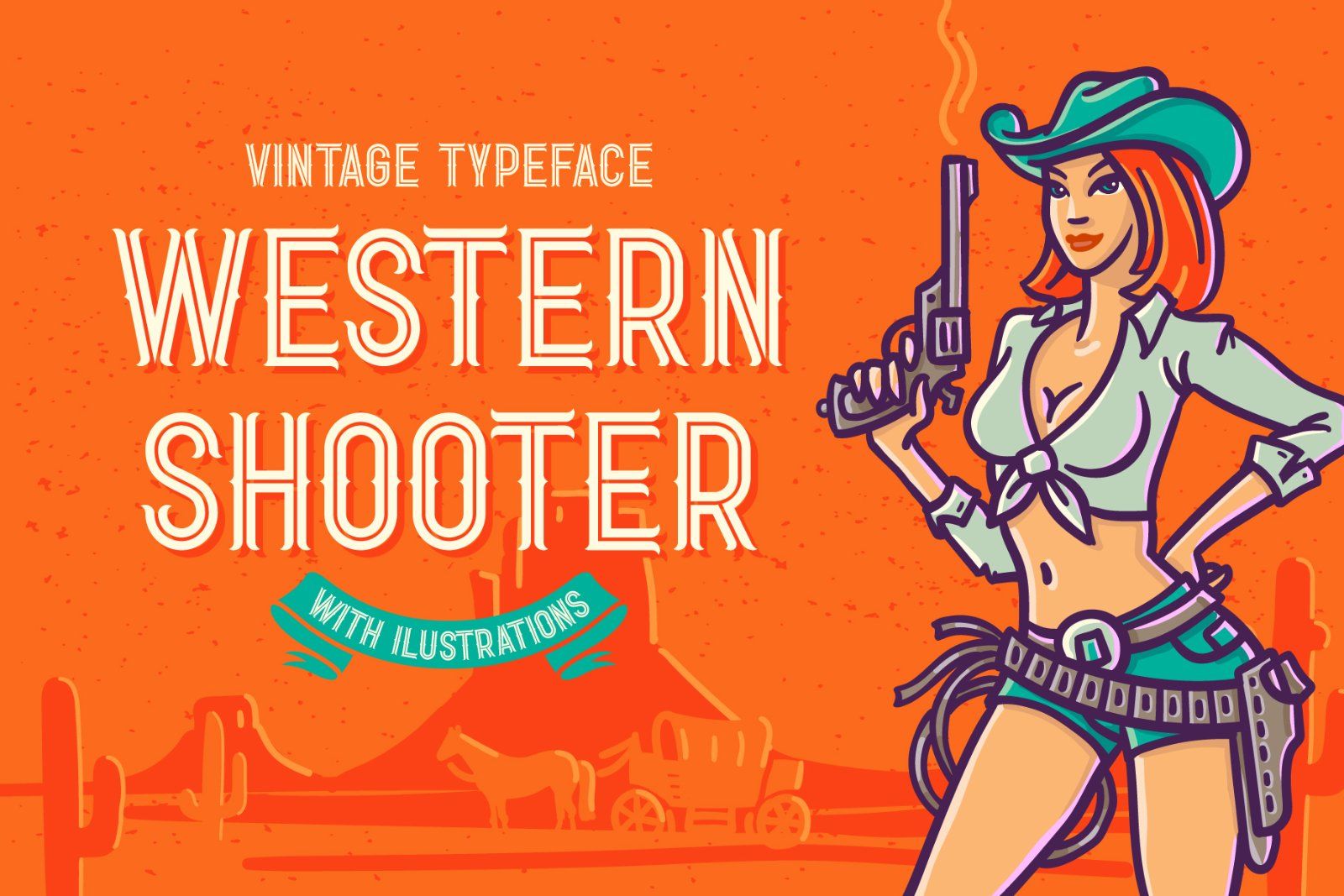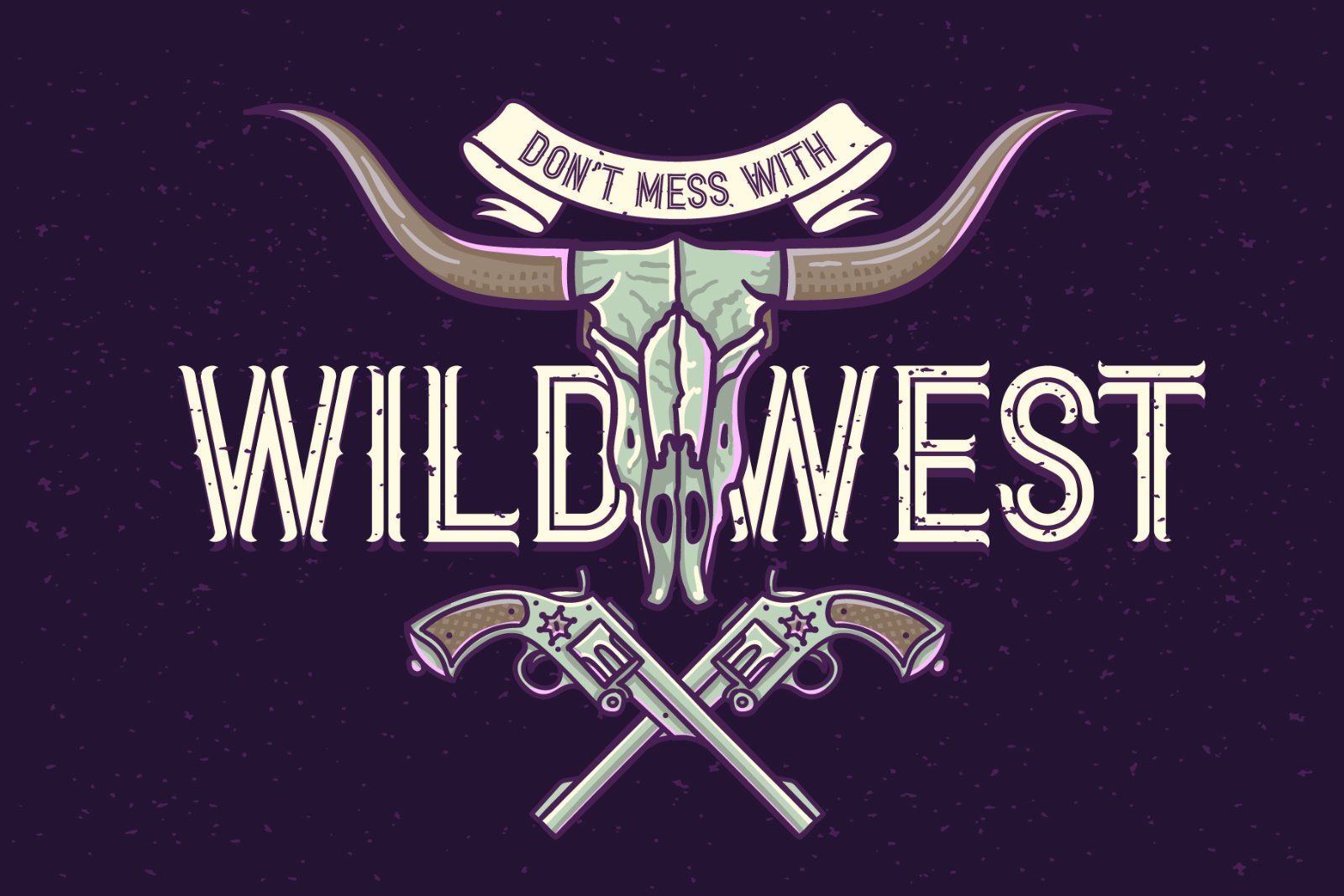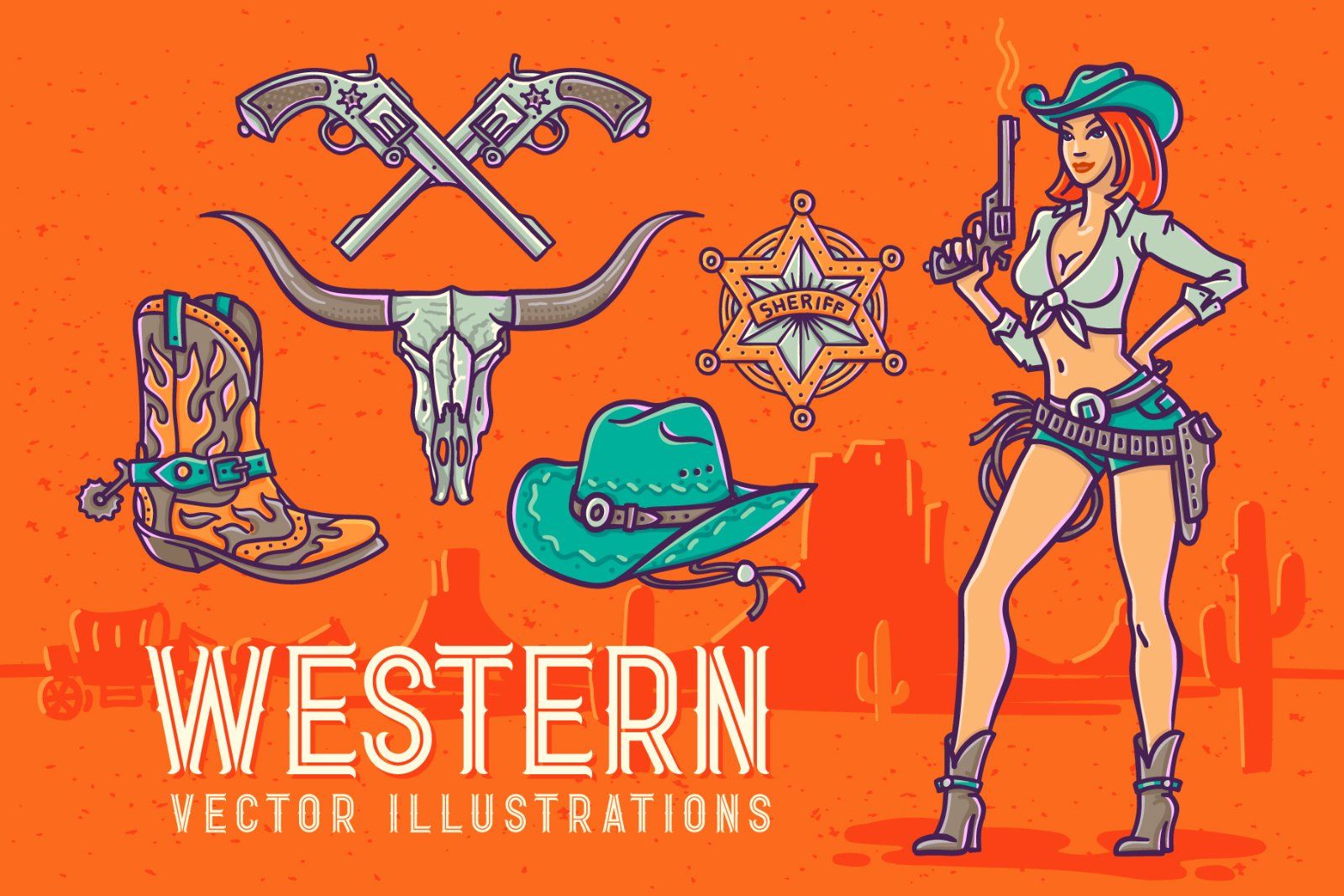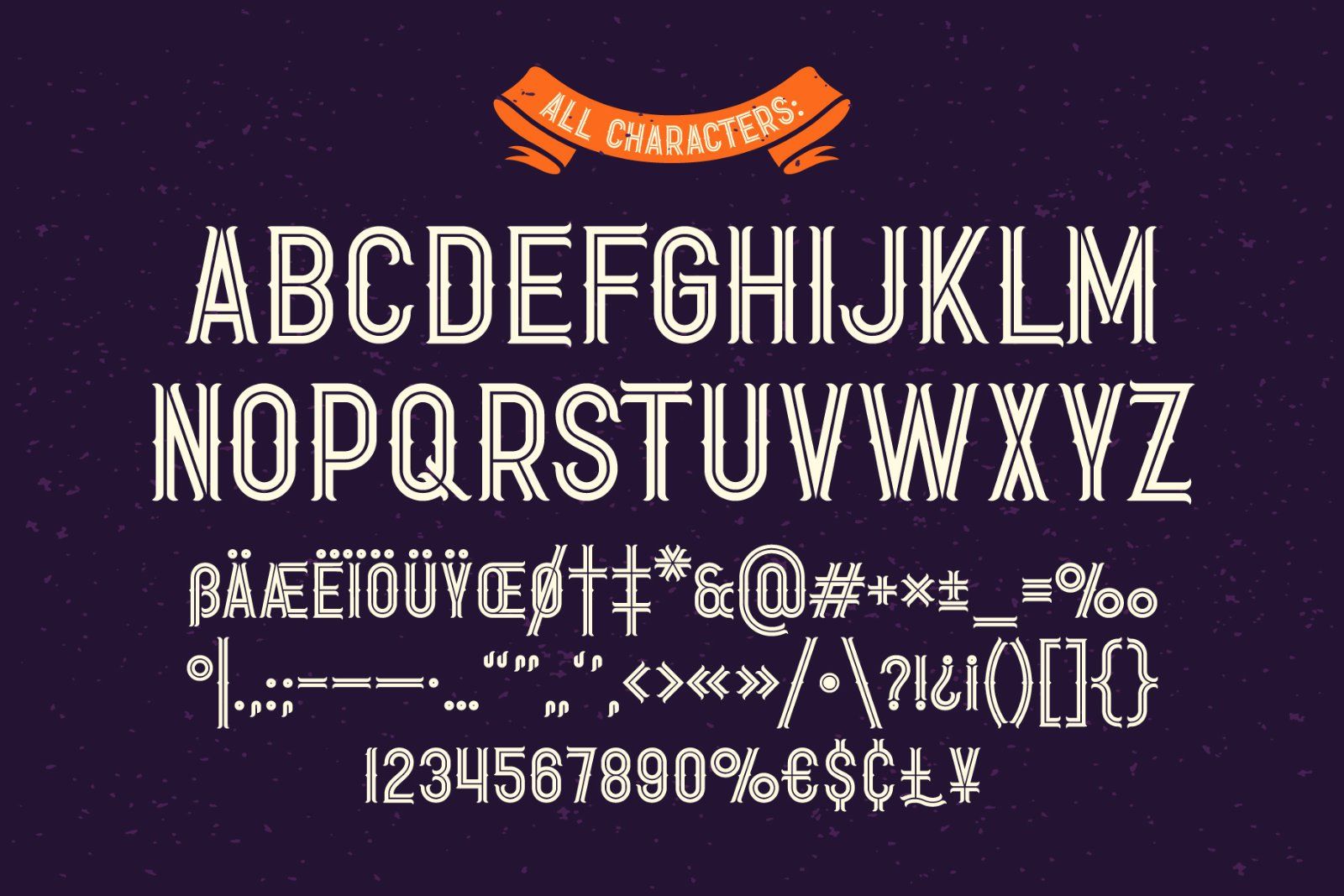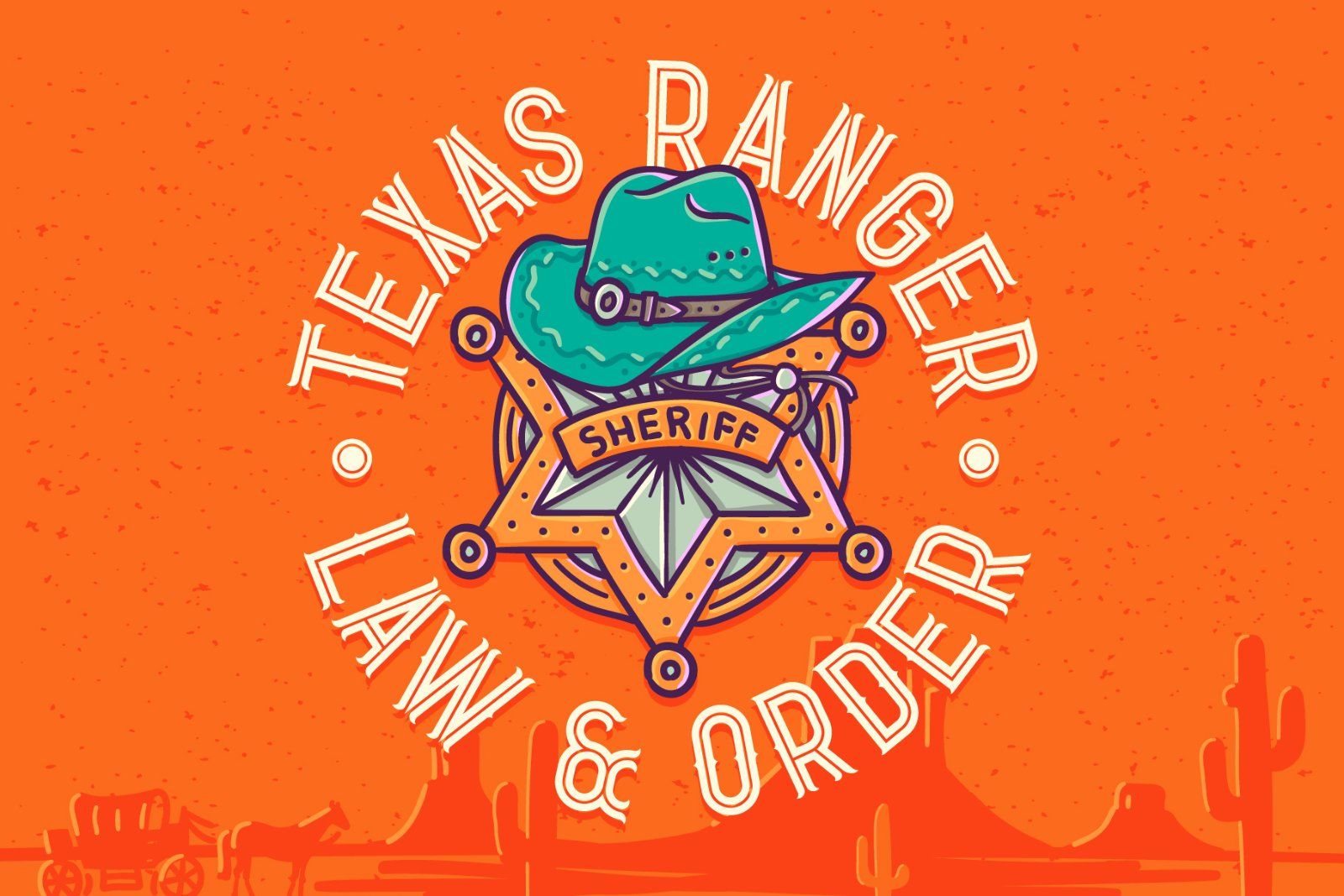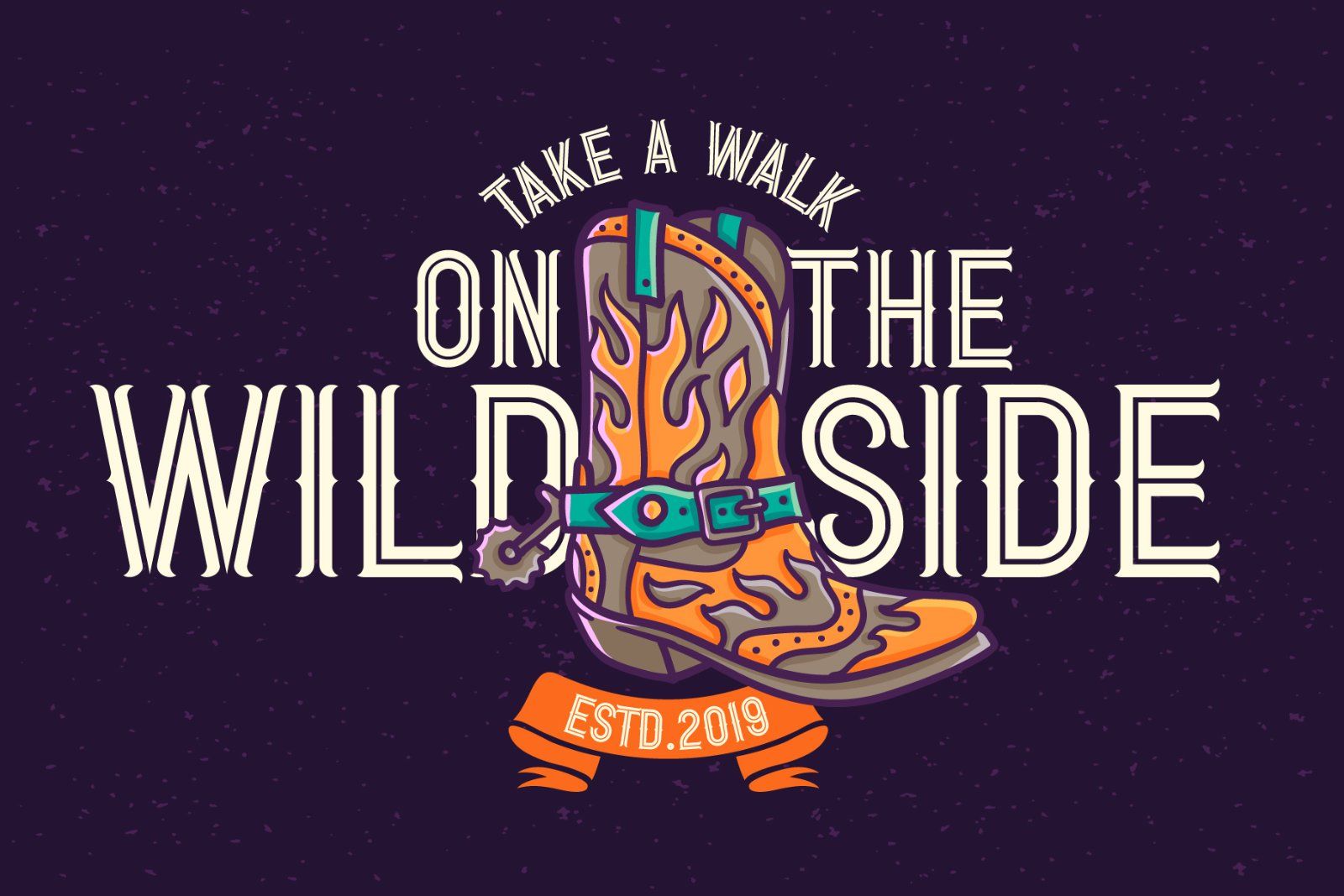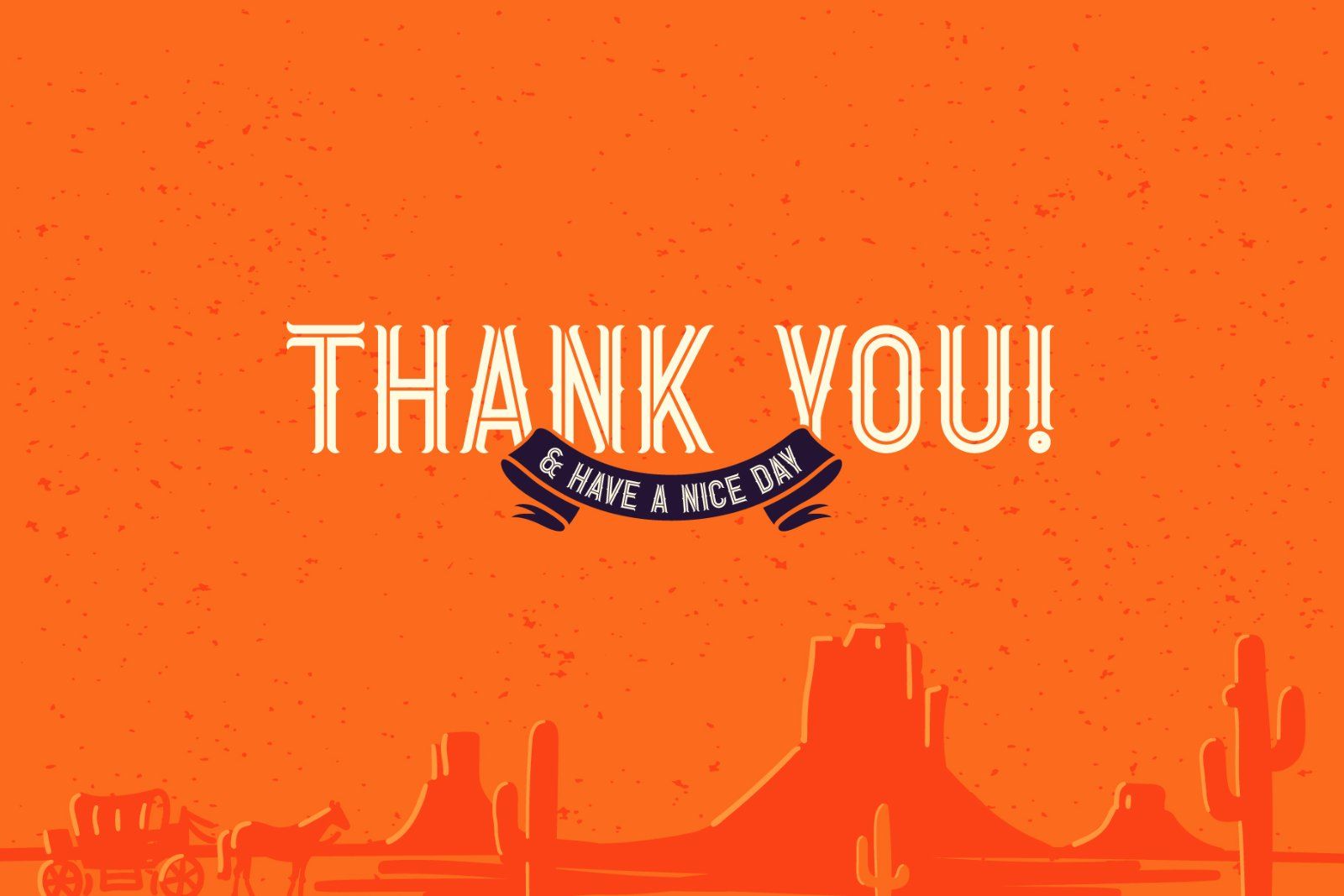
Hi, presenting a wild west style font. It's an only caps typeface with authentic vintage look. This font comes with a great vector bonus - Western American style illustrations (3rd screenshot). Also all the lettering posters are available here in ai & eps formats.
P.S. This font has some multilingual support, please check all available characters from 4th screenshot.